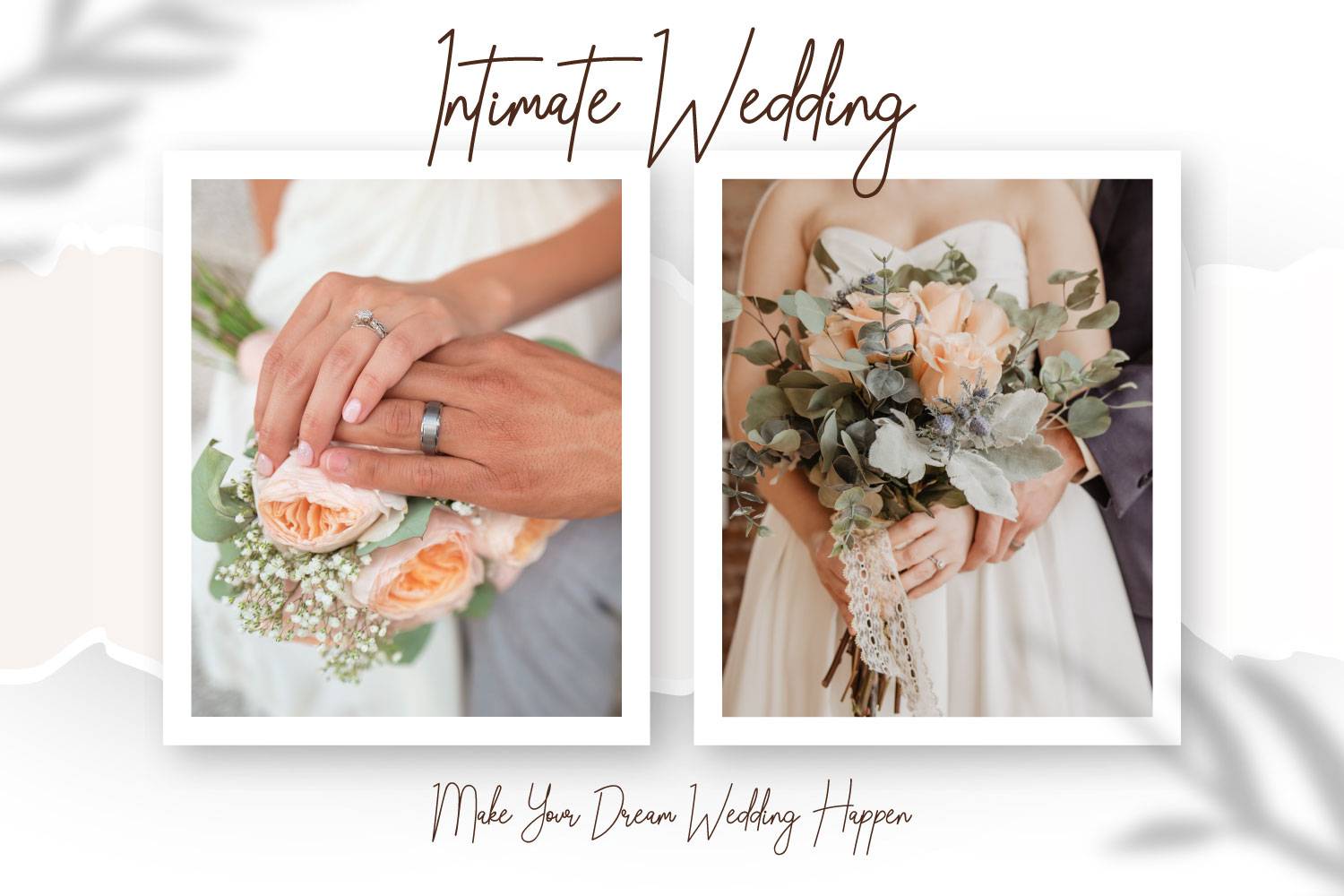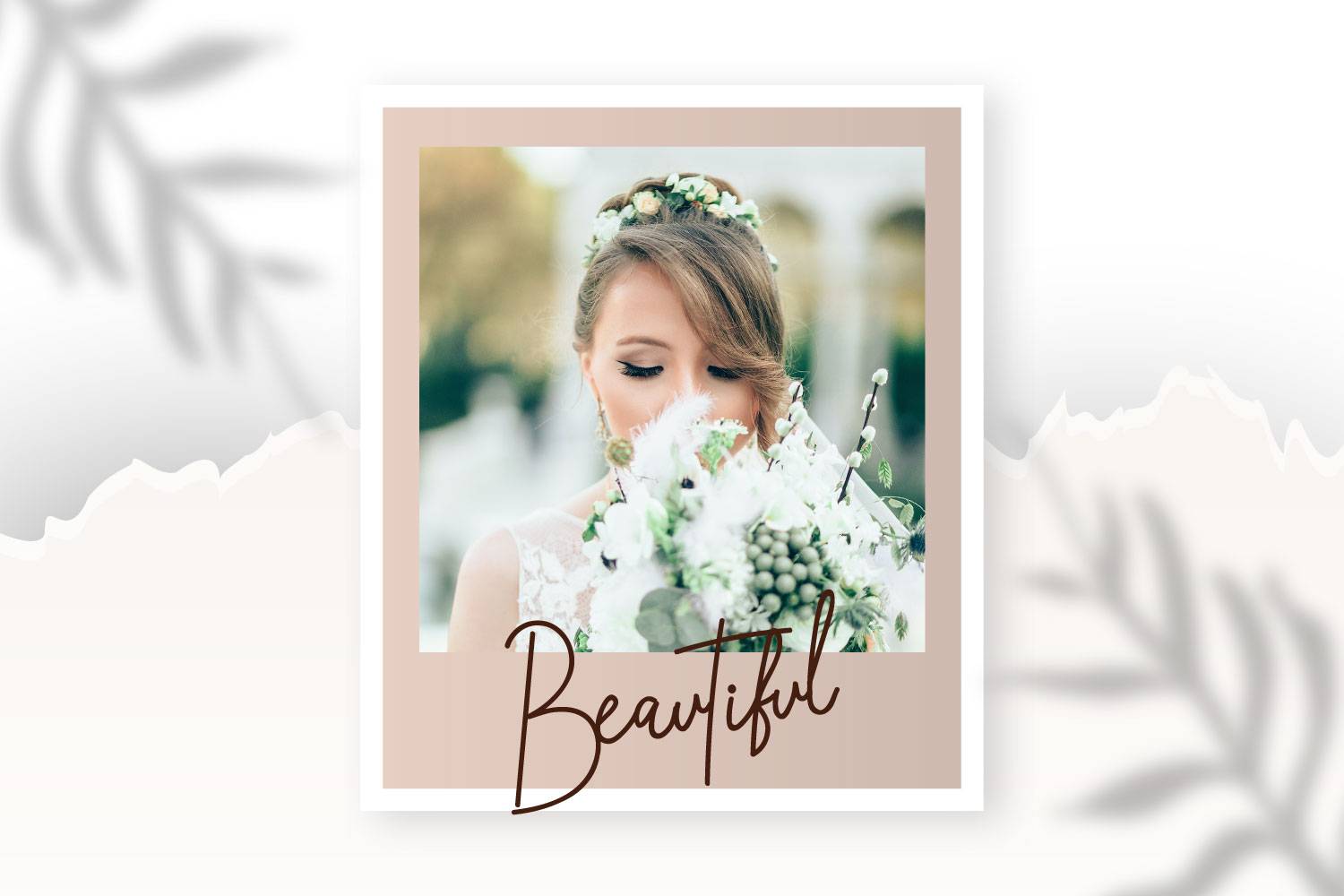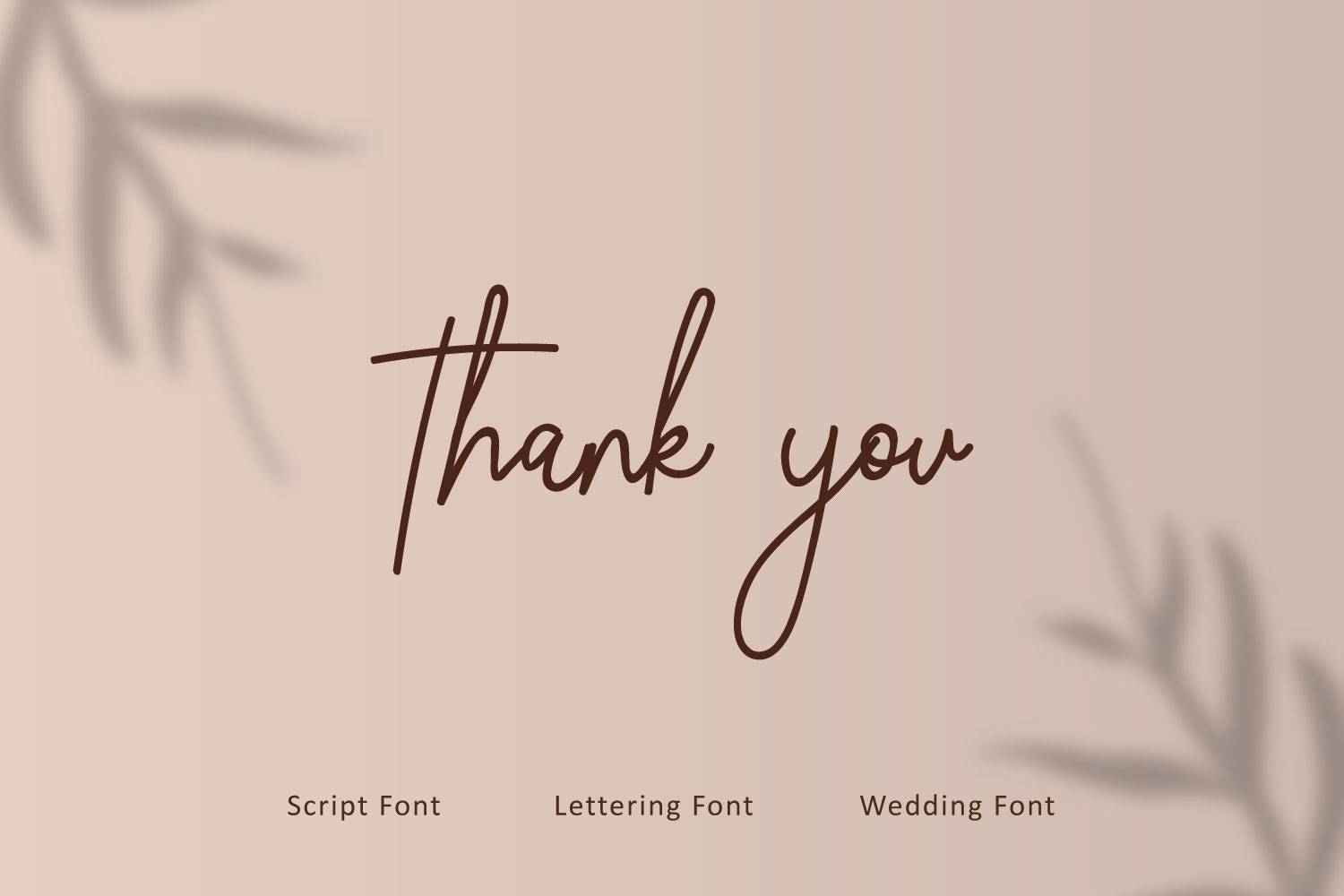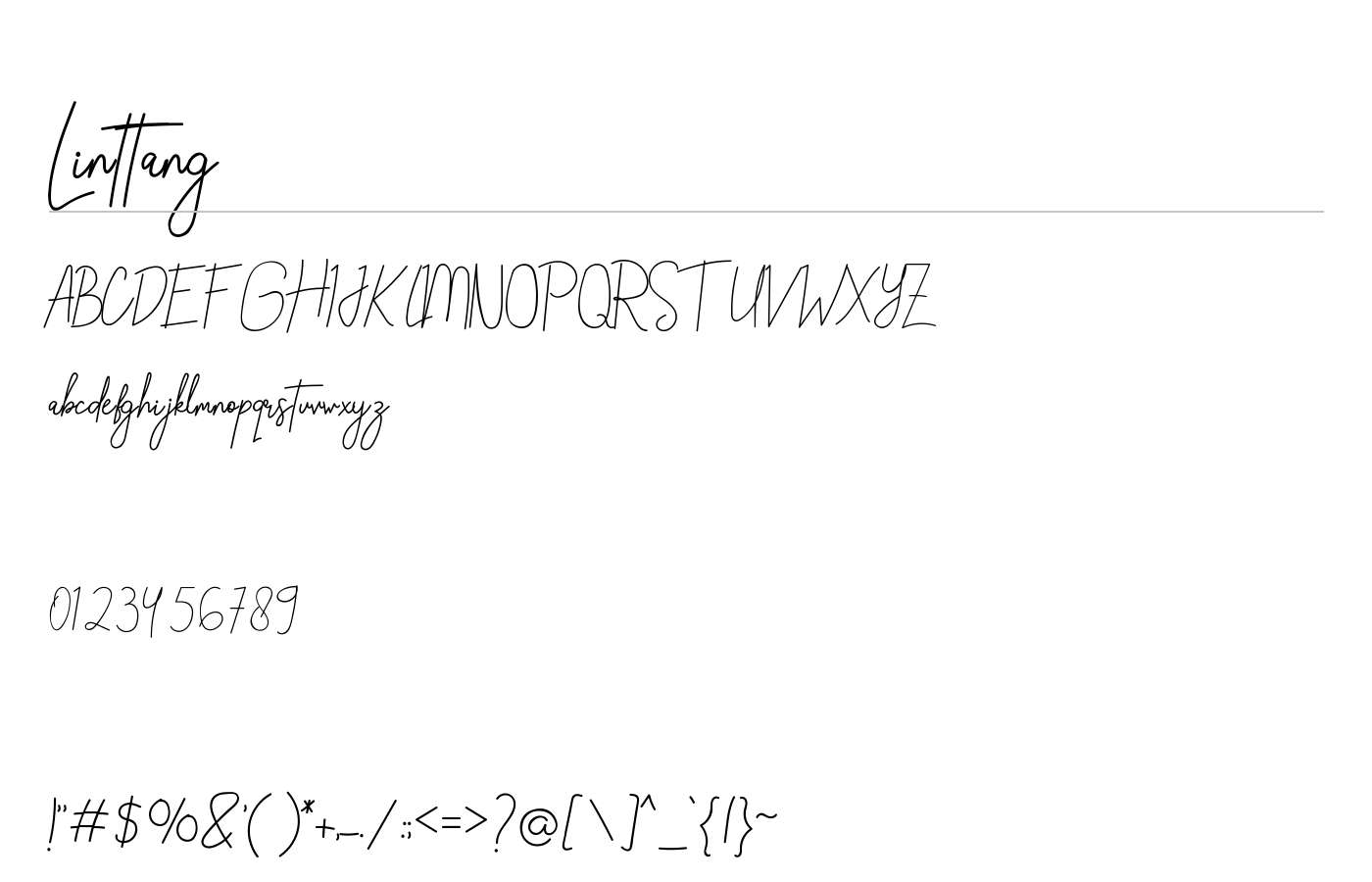
Linttang is a delicate, handwritten script font with a tall, narrow, and elegant style that feels personal and artistic. Its thin strokes and slightly irregular letterforms create a playful yet sophisticated look, making it ideal for creative branding, invitations, and fashion-related designs that want to convey charm and uniqueness. This font works best in display sizes where its fine details can shine, adding a touch of casual elegance.
Linttang Font
About Linttang Font
| Font family | Linttang Font |
| Designer | Frederik Aristaputra |